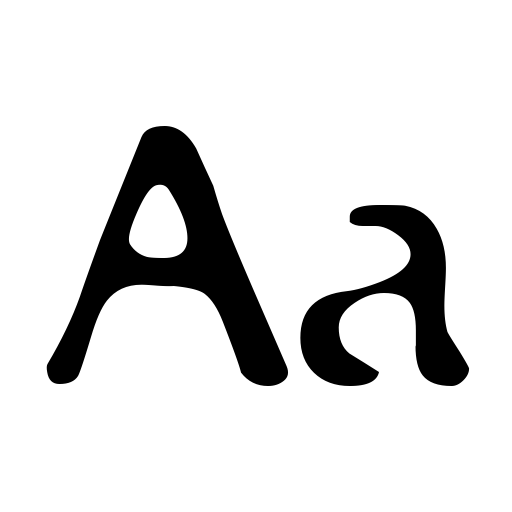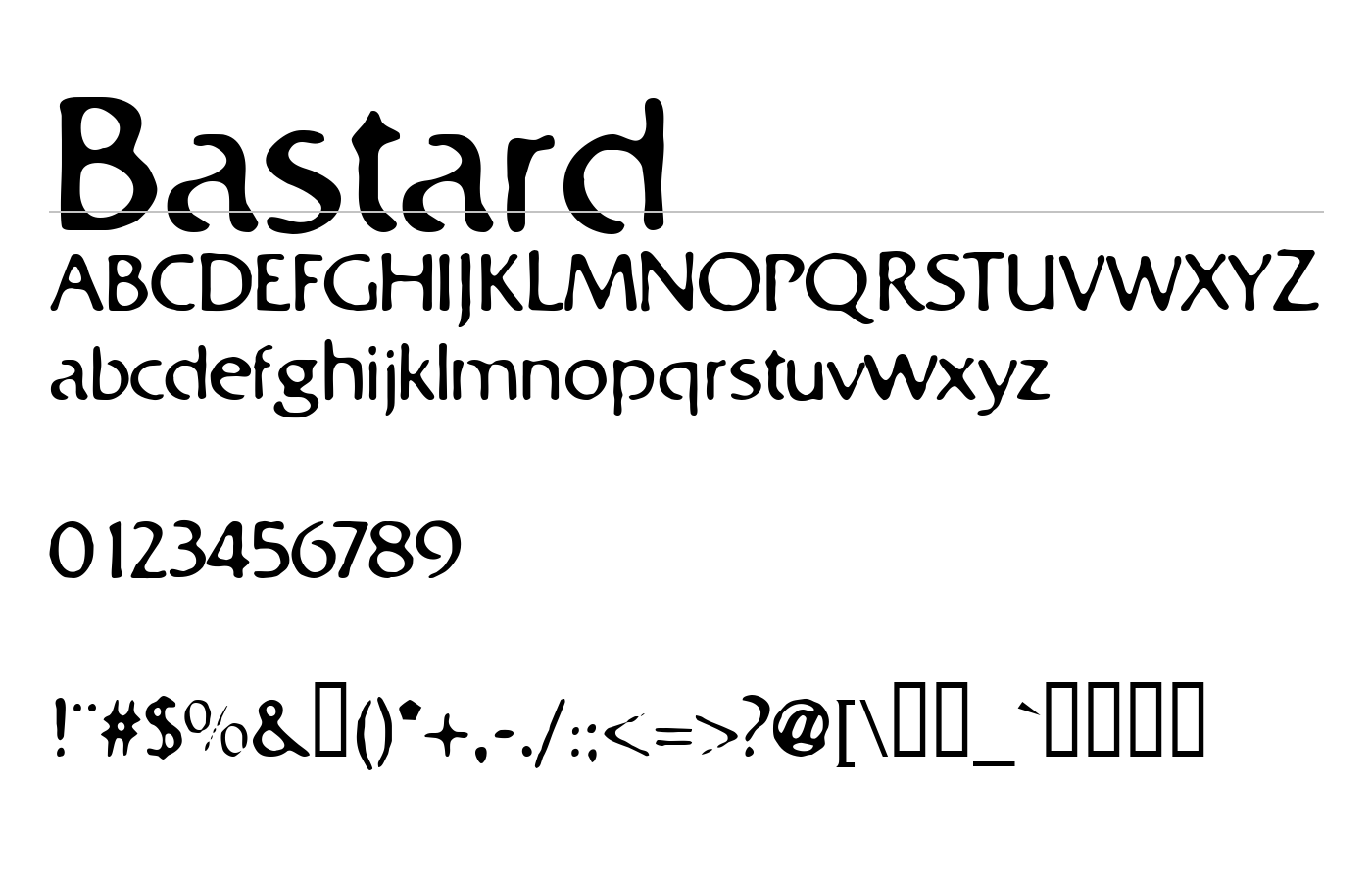
Bastard Font is a quirky, playful serif typeface with uneven strokes and a hand-drawn feel, giving it a rustic, casual charm. Its irregular shapes and moderate contrast make it well-suited for fun, informal designs such as posters, creative branding, or editorial projects that want to stand out with personality and warmth. This font works best in headlines or short texts where its unique character can shine.
Bastard Font
About Bastard Font